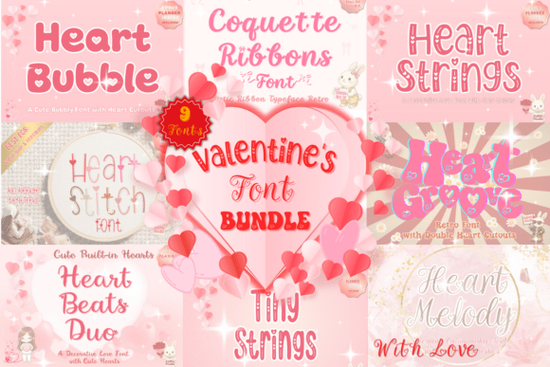
If you're designing Valentine’s cards, wedding stationery, or even coquette-themed stickers, having the right fonts can make all the difference. The Valentines Font Bundle Font brings together 10 thoughtfully crafted typefaces that cover everything from retro groovy scripts to delicate wedding calligraphy all in one download. Whether you’re a print-on-demand seller, a small business owner creating seasonal products, or a hobbyist making handmade gifts, this bundle offers real versatility without overwhelming complexity.
What makes this font bundle useful for real projects?
Each font in the bundle solves a specific design need:
- Coquette Ribbons mimics vintage 70s ribbon lettering ideal for elegant gift tags or nostalgic packaging.
- Heart Strings is that viral cute script with embedded heart doodles, perfect for social media graphics or kids’ valentines.
- Tiny Strings offers a taller, refined take on Heart Strings great for vertical layouts like bookmarks or planner headers.
- Heart Groove delivers bold, retro 70s energy with double heart cutouts, excellent for posters or apparel.
- Heart Bubble has a soft, inflated look that works beautifully for playful quotes or nursery decor.
- Heart Stitch simulates embroidery texture designed specifically for printing methods like sublimation or DTF, not vinyl cutting.
- Heart Melody features elegant swashes with subtle hearts, making it a strong choice for wedding invitations or luxury branding.
- The Heart Beats family includes three versions: solid (clean connectors), decorative (with extra flourishes), and a bonus SVG color font with built-in red hearts no layering needed.
Important tips before you start crafting
Not all fonts behave the same across materials:
- Heart Stitch is meant for printing, not cutting. Its faux-embroidery effect relies on tiny dots that won’t translate well to vinyl we recommend using it for sublimation mugs, DTG shirts, or digital prints.
If you’ve worked with decorative fonts before, you’ll appreciate how these are optimized for real-world use not just pretty previews.
How does this compare to other themed bundles?